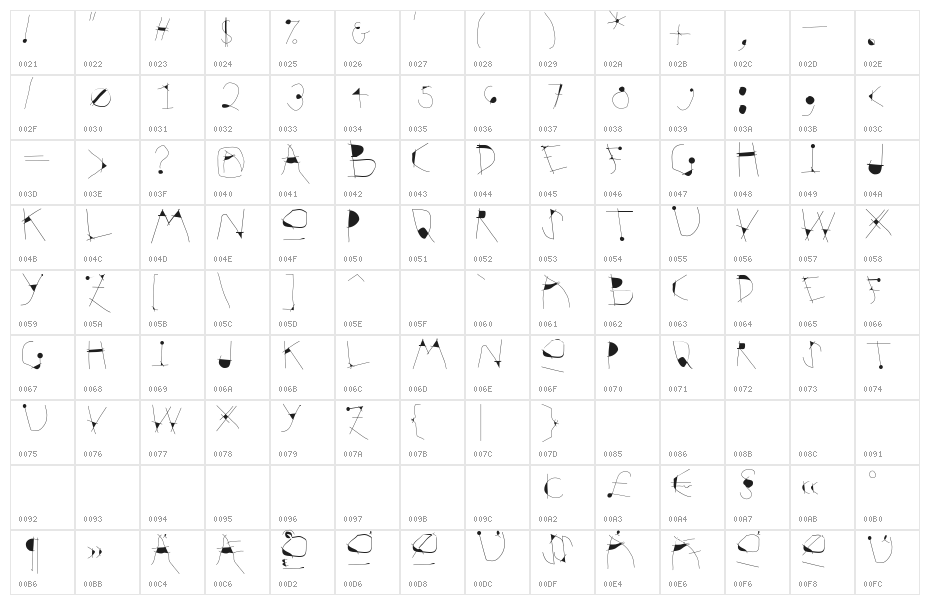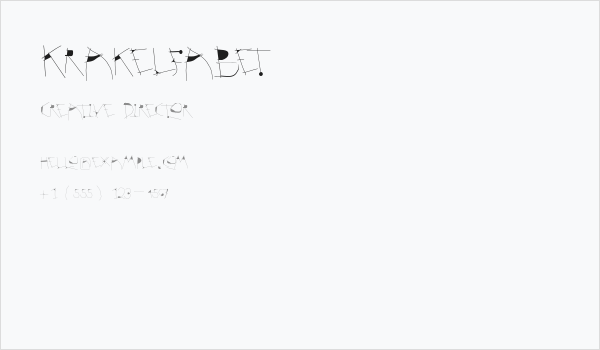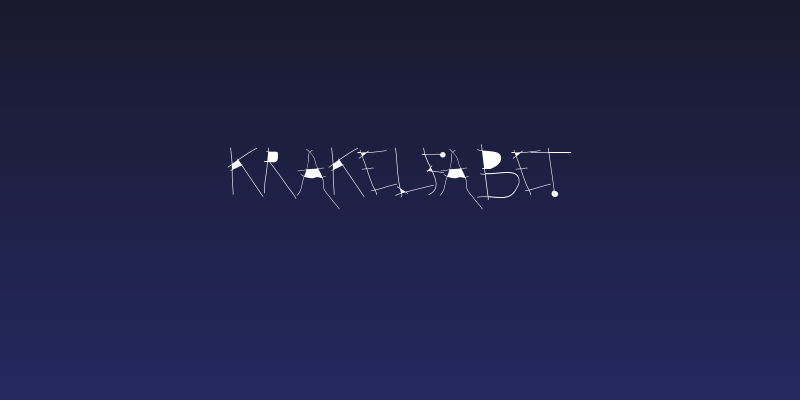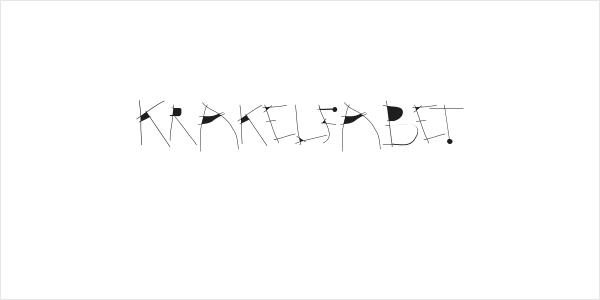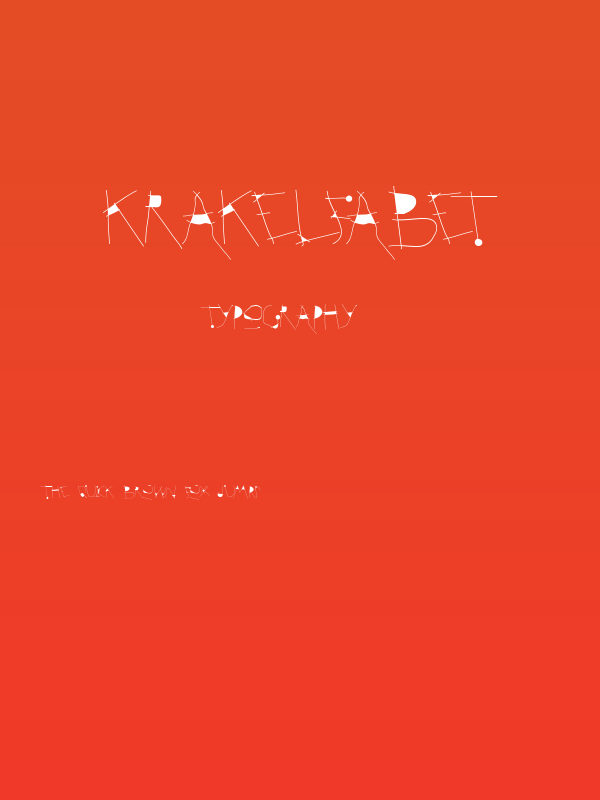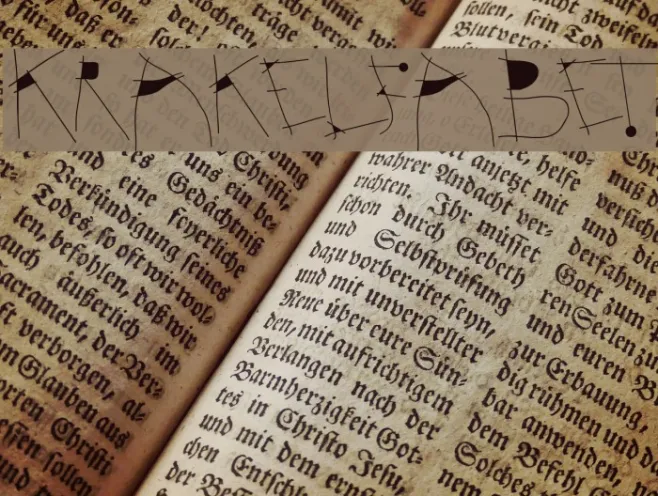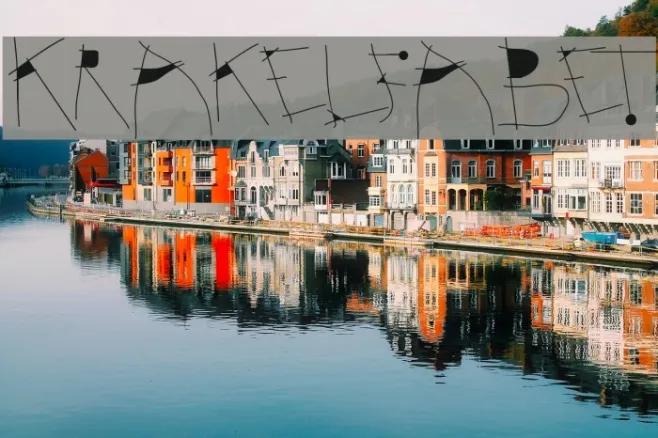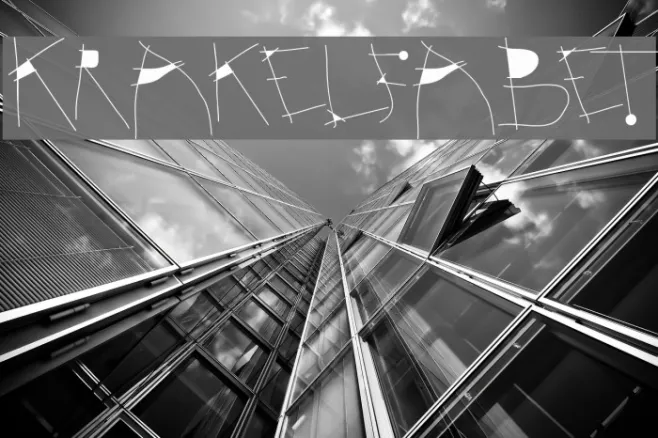
Krakelfabet Font
Krakelfabet Description
This font features a highly decorative and abstract design, characterized by its thin, spindly lines and sporadic bold dots. The letters are constructed with a playful, almost chaotic arrangement of lines and shapes, giving it a whimsical and artistic appearance. The uppercase and lowercase letters maintain a consistent style, with exaggerated curves and angles that create a sense of movement and energy. Numbers and special characters follow the same design principles, ensuring a cohesive look across all elements. The font's unique style makes it stand out, offering a creative and unconventional approach to typography.
| Use Case | Logos, Posters, Artistic projects |
| Proposed Projects | Ideal for artistic projects, creative posters, unique branding, and experimental designs. |